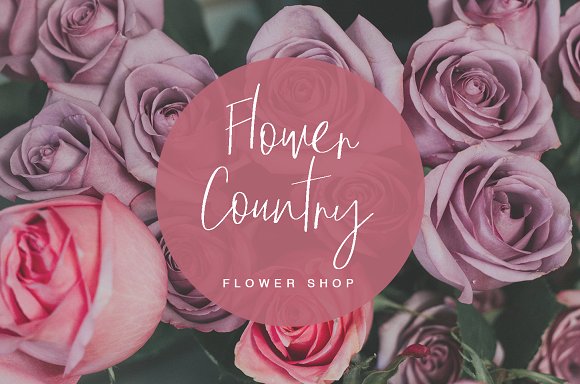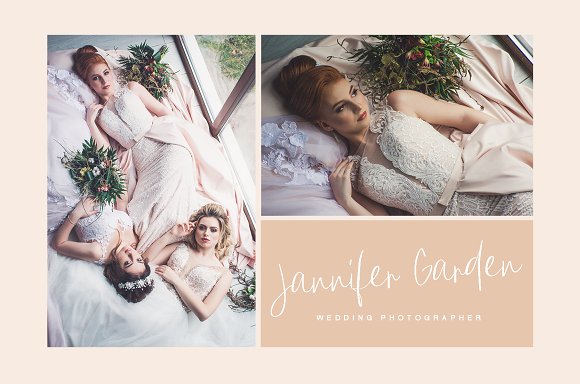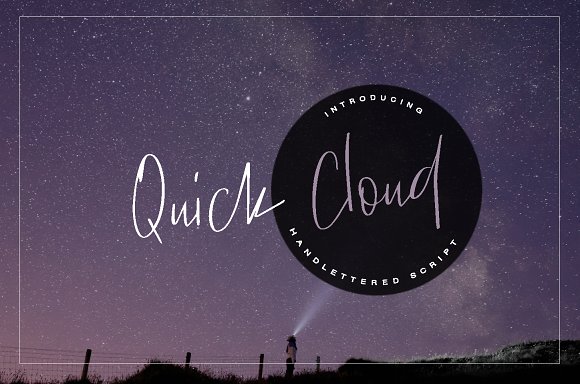
Quick Cloud Font
Quick Cloud – a new fresh handmade calligraphy font.
Very suitable for greeting cards, branding materials, business cards, quotes, posters, and more!This font are perfect for wedding postcard. Or you can create perfect and unique design of your logo, blog, stationery, marketing, magazines and more